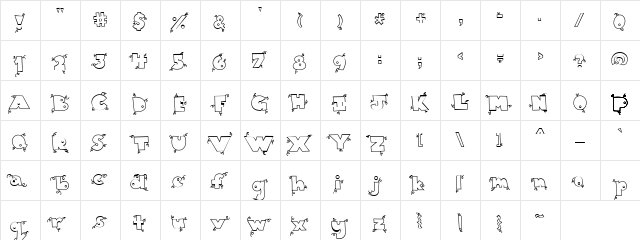
LD Piglet Regular
Design Context for LD Piglet Typeface
LD Piglet is a composed and adaptable typeface that performs quietly and consistently across a wide range of design contexts.